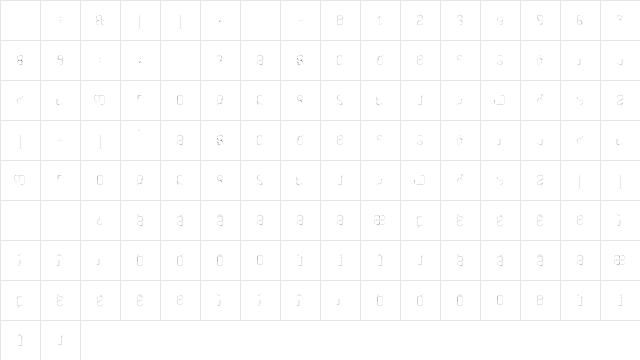
Madredeus Regular
Design Context for Madredeus Typeface
Madredeus is a composed and adaptable typeface that performs quietly and consistently across a wide range of design contexts.